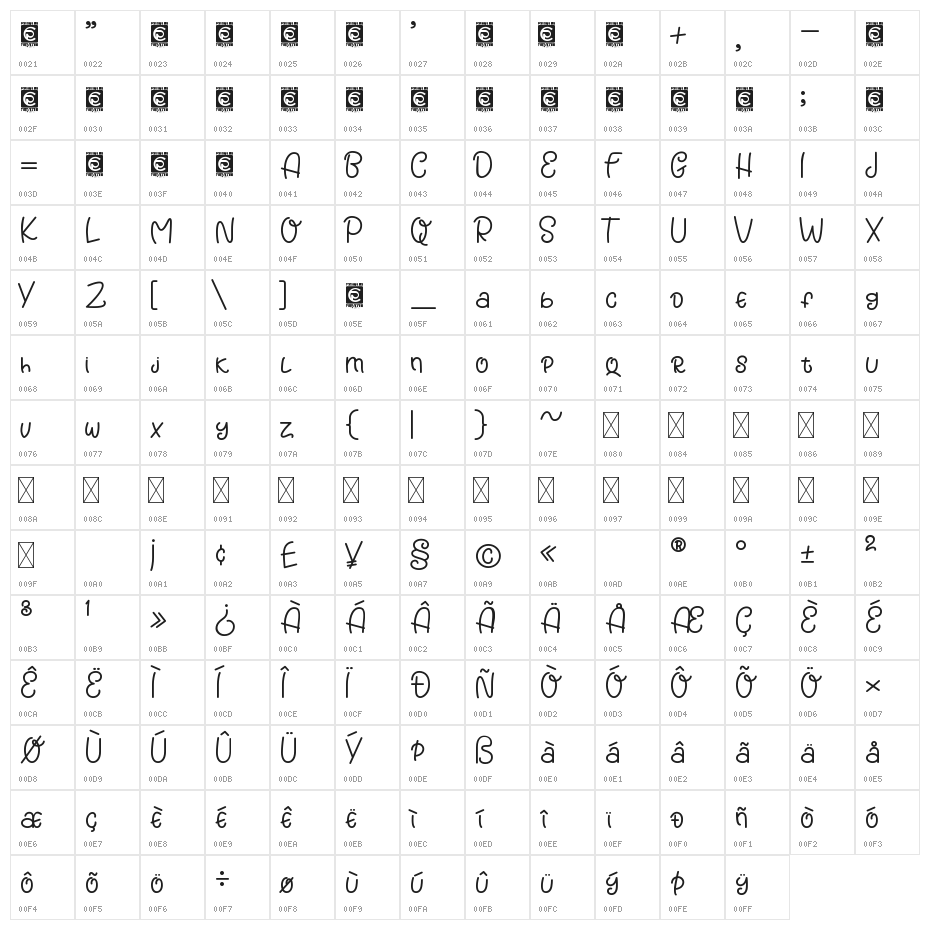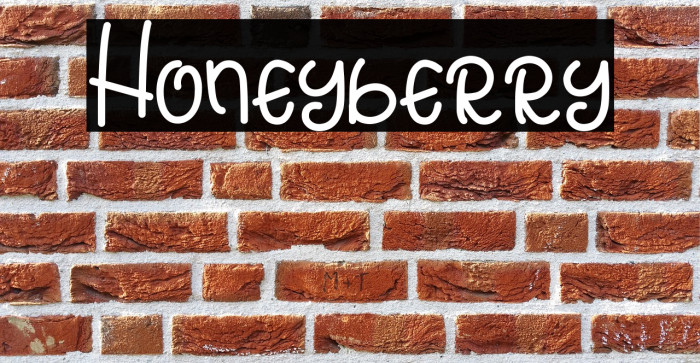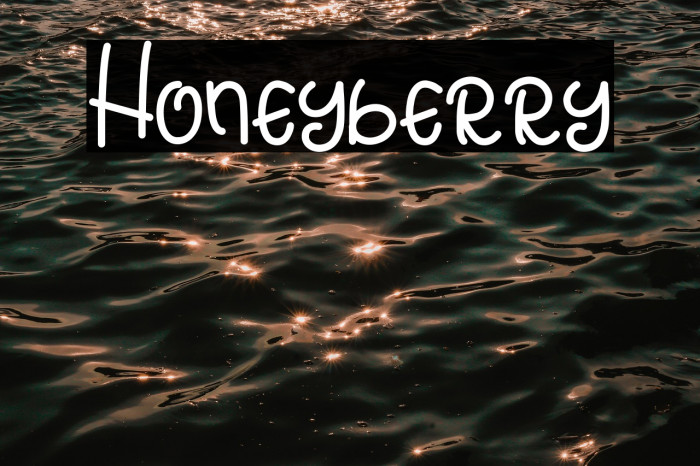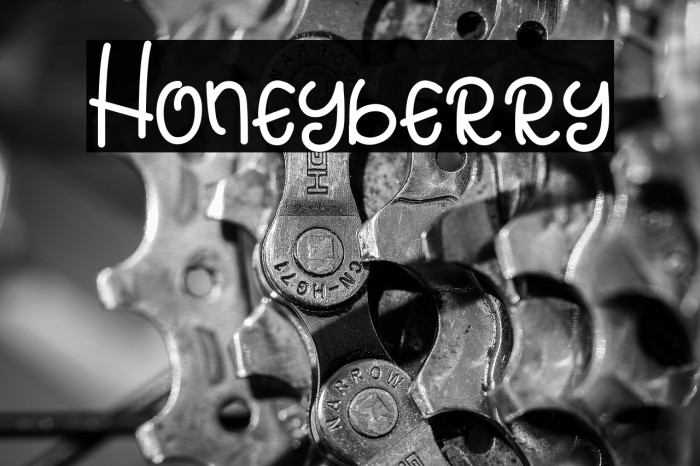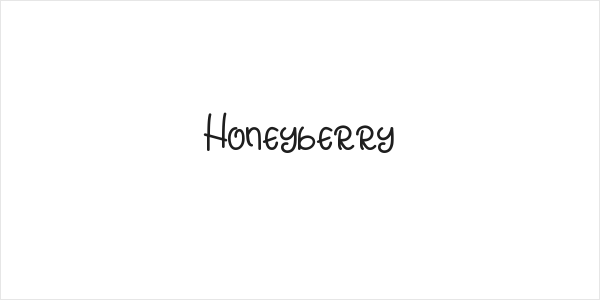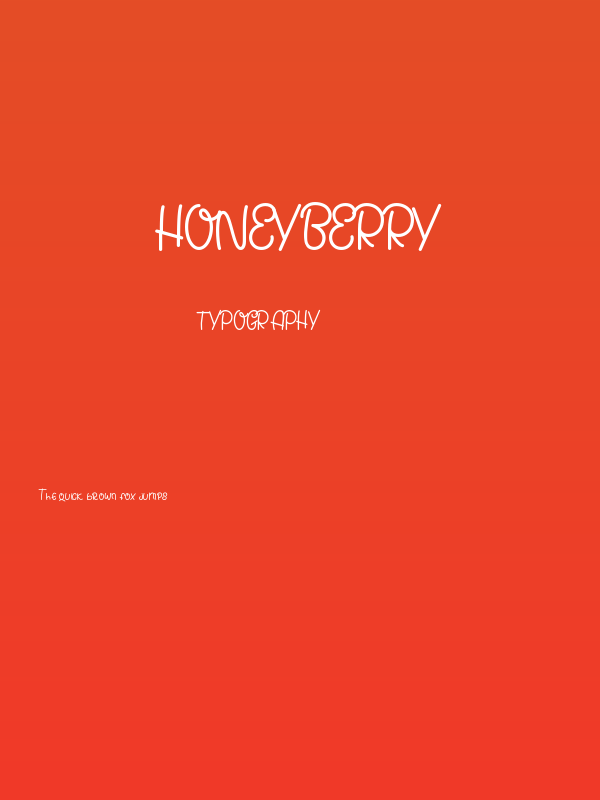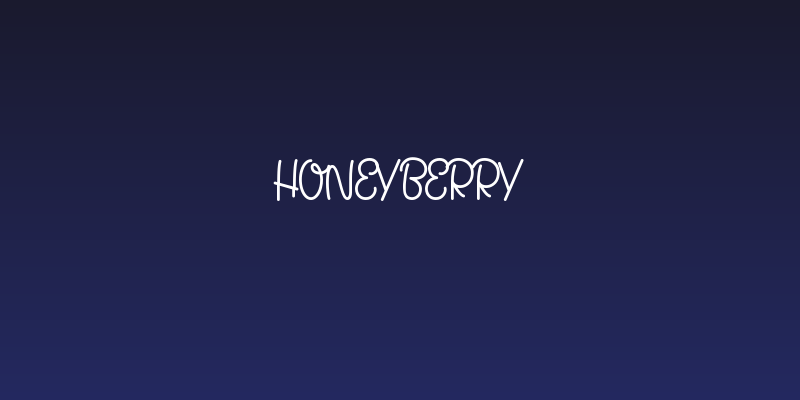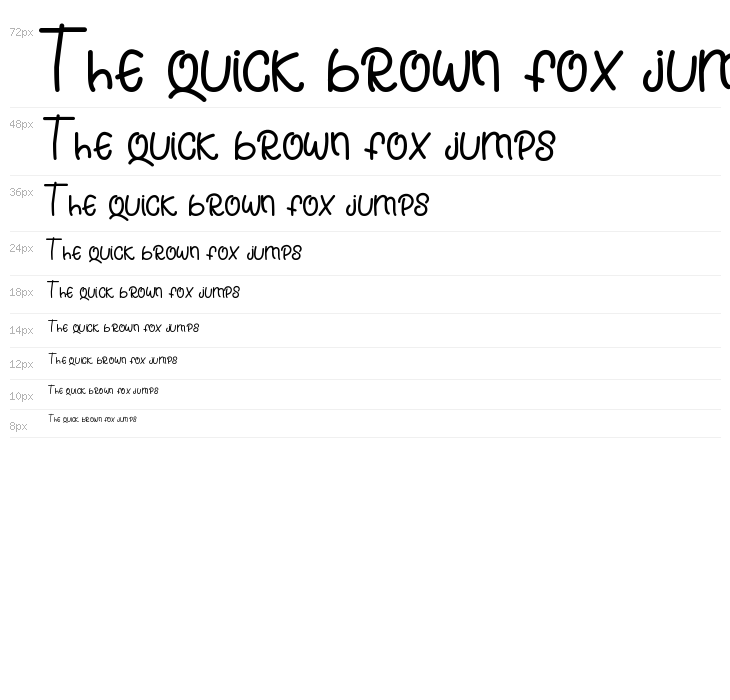
Honeyberry Font
Honeyberry Description
This playful and whimsical font features a handwritten style with smooth, flowing curves and a casual, friendly appearance. The letters are slightly elongated with a consistent stroke width, giving it a uniform look while maintaining a sense of individuality in each character. The uppercase and lowercase letters are well-balanced, and the numerals are clear and easy to read. The special characters add a touch of fun, making this font suitable for creative and informal projects. Its unique style makes it stand out, perfect for designs that require a personal touch.
| Use Case | Logos, Headlines, Informal Text |
| Proposed Projects | Ideal for greeting cards, children's books, playful branding, and social media graphics. |